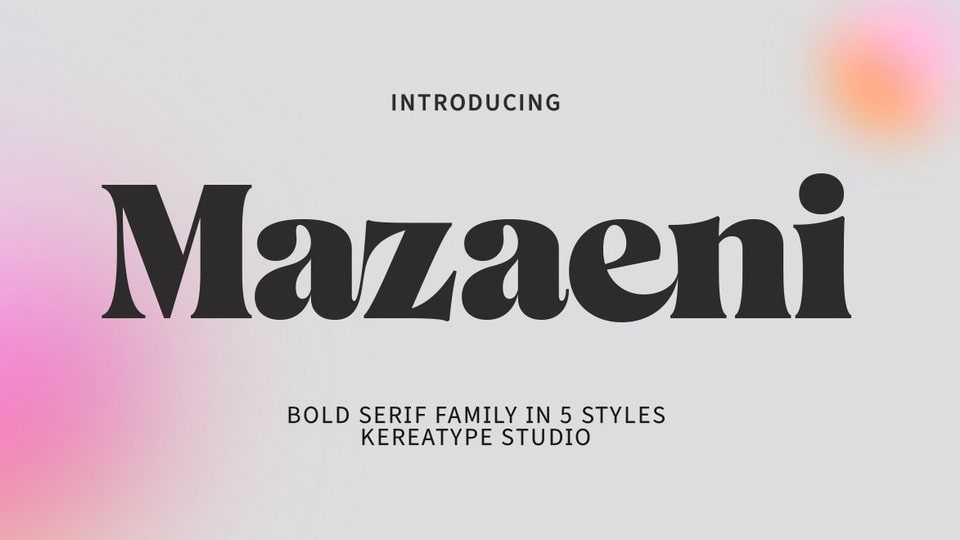
Download Mazaeni font, a bold serif typeface inspired by something simple, elegant, usable, and versatile. Mazaeni is a daring and playful display typeface perfect for logotypes, posters, and editorial use.
Designer: Kereatype Studio